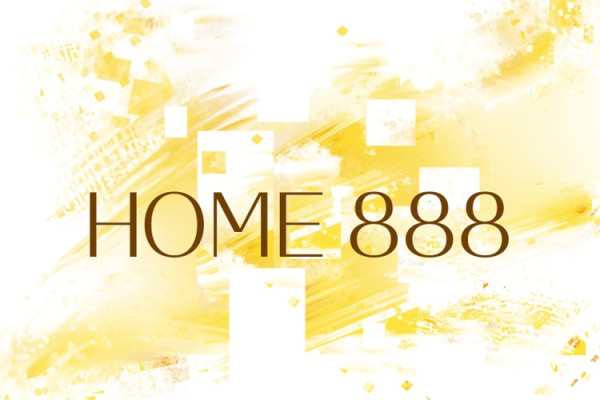
Home 888 Font
Home 888 Font, a simple and sans serif font. So perfect for you who needs a typeface for logo designs, magazine, social media, brochure, and many more.